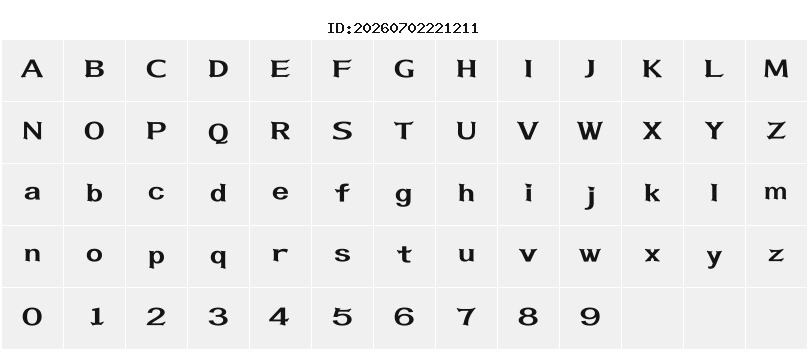
192-上首傲骨体 Preview
About 192-上首傲骨体.ttf
192-上首傲骨体.ttf is a modern, elegant sans-serif font designed for ultimate readability and visual harmony. Perfect for branding, headlines, web design, and print materials.